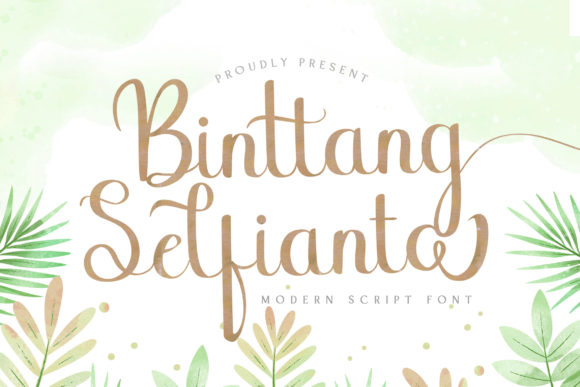
Binttang Selfianto: A Script Font With Editorial Warmth
There are moments in editorial design when you need a typeface that feels personal, not mechanical. I remember sitting down to refresh the header of a lifestyle blog I had been publishing for years. The original logo used a generic slab serif that had served its purpose, but something about it no longer matched the voice of the content. The articles were gentle, thoughtful, and anecdotal, covering everything from slow living to seasonal recipes. The header needed to whisper, not shout. That is when I opened a folder of script fonts I had been testing and landed on Binttang Selfianto. The moment I typed the blog name into the preview, the whole mood of the layout softened. It looked like a handwritten note from a friend, which is exactly the feeling I wanted readers to carry into every post.
Binttang Selfianto is a beautiful script font created with calligraphic roots and a refined sense of rhythm. It is not the kind of script that feels rushed or overly casual. There is a deliberate grace in every letterform, a balance between expressive strokes and legible shapes that makes it suitable for editorial contexts where warmth and clarity both matter. Whether you are designing a magazine cover, a newsletter header, a recipe ebook title, or a pull quote for a feature article, this font brings a human touch that standard display fonts often lack.
The Visual Character and Editorial Mood of Binttang Selfianto
When I evaluate a script font for publishing work, I look at three things: consistency of stroke, rhythm across letter combinations, and how the font behaves at different sizes. Binttang Selfianto scores well on all three counts. The strokes flow with a natural variation in thickness that mimics real calligraphy, but without the erratic quality that can make some handwritten fonts difficult to read in layout settings. The x-height is generous, which means even when scaled down for a subtitle or a decorative accent, the letters remain open and recognizable.
The mood of Binttang Selfianto sits somewhere between elegant and approachable. It does not feel stiff or formal, yet it avoids being overly playful. This makes it an excellent choice for editorial projects that need to communicate sincerity, creativity, or a handcrafted sensibility. I have used it in a wedding guide layout where the chapter titles needed to feel romantic but still readable on a printed page, and in a coaching workbook where the section headers had to carry a tone of encouragement without feeling childish. In both cases, the font settled into the layout naturally, supporting the content rather than competing with it.
For bloggers and independent publishers, this kind of versatility is valuable. Many of us work across multiple formats, from blog posts and PDF guides to printable planners and newsletter graphics. Having a script font that maintains its character across these contexts saves time and strengthens brand recognition. Binttang Selfianto does exactly that. I have tested it in a desktop publishing layout for a digital magazine, in a Canva template for social media quotes, and in a printed recipe booklet. In every format, the font retains its warmth and its editorial polish.
Using Binttang Selfianto in Real Content Layouts
One of the first places I applied Binttang Selfianto was in the article titles of a lifestyle blog redesign. The blog covers slow travel, home cooking, and creative journaling, so the typography needed to feel personal and unhurried. With Binttang Selfianto set at 36 pixels for the main titles, the header area immediately gained a hand-lettered quality that matched the voice of the writing. Readers commented on the change within days, not because they identified the font by name, but because the layout felt more cohesive and inviting. That is the quiet power of a well-chosen typeface. It communicates mood without calling attention to itself.
I have also used Binttang Selfianto for pull quotes in editorial layouts. In a feature article about seasonal cooking, I placed a short quote from the author in the font at 22 pixels with generous tracking. The pull quote sat inside a soft tinted background box, and the script lettering created a natural focal point that drew the eye without disrupting the reading flow. For section headings in a recipe ebook, I paired the font with a clean sans serif for body copy, a combination that gave the pages a structured yet friendly appearance. The headings felt like handwritten recipe notes, while the instructions remained easy to scan.
Another strong use is in newsletter graphics and email headers. Substack and Revue newsletters often rely on imagery and typography to set the tone before a reader clicks through. Binttang Selfianto works beautifully as a headline overlay on a soft photograph or a solid pastel background. I created a weekly newsletter header using the font set at 48 pixels, with the subhead in a light sans serif. The result looked polished without being corporate, and the script gave the newsletter a signature feel that subscribers began to recognize immediately.
For printable products such as guided journals, worksheets, and planner covers, Binttang Selfianto offers a decorative yet functional option. I used it on the title page of a gratitude journal, where the handwritten look invited users to see the journal as a personal space rather than a mass-produced item. It also works well on worksheet headers, especially when the rest of the layout remains minimal. The font adds just enough personality to keep the page from feeling sterile, which is important for products aimed at creative or reflective audiences.
Readability and Practical Considerations
Every editorial designer knows that a beautiful font is only useful if it serves the reader. Binttang Selfianto is a display script, which means it performs best in headline and accent roles. I would not recommend it for body copy, dense paragraphs, small captions, or any setting where sustained reading is required. The flowing letterforms, while elegant, become tiring at small sizes or in long blocks of text. That is not a flaw. It is simply a matter of using the font where it adds value and letting other typefaces handle the heavy reading.